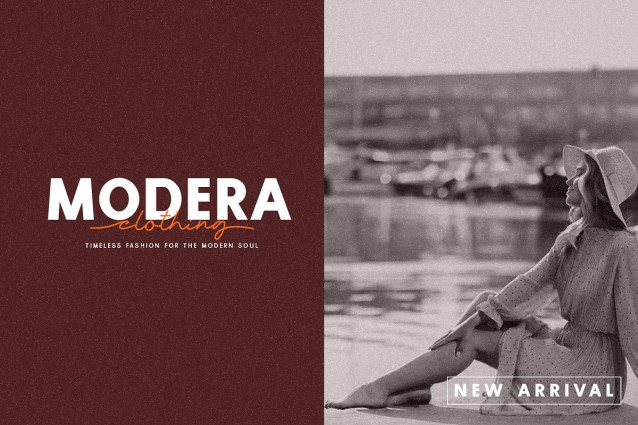
Celvia Font Duo
Celvia Font Duo, a modern and elegant font duo that combines a soft handwritten script with a bold, clean sans serif. Designed for effortless pairing, Celvia offers beautiful contrast and harmony between its two styles, making it perfect for fashion branding, editorial layouts, social media, packaging, and logo design.
Whether you’re creating a chic fashion label, a wedding stationery suite, or a personal brand identity, Celvia gives you the flexibility and charm to elevate your visuals with sophistication.